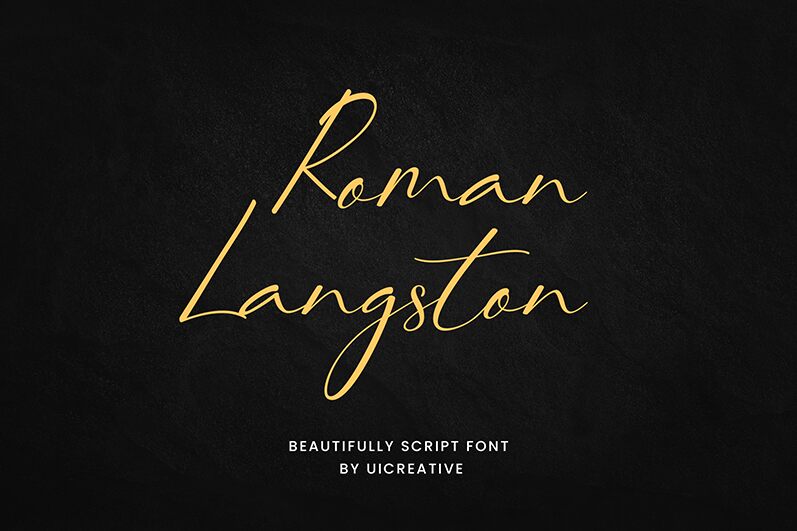
RomanLangston
Roman Langston font from UI Creative is a free handwritten font with expressive letters and strokes, an elegant style, and a personal touch. Its light weight makes it less dense than your usual typefaces, presenting readers with an informal elegance in texts that can be gripping when handled by the right designer.
It can add to book covers for novels or romance books, posters for theater performances or movies, invitation cards for weddings or events, branding presentations and packaging projects. It can also be used in social media platforms like Instagram or on websites.